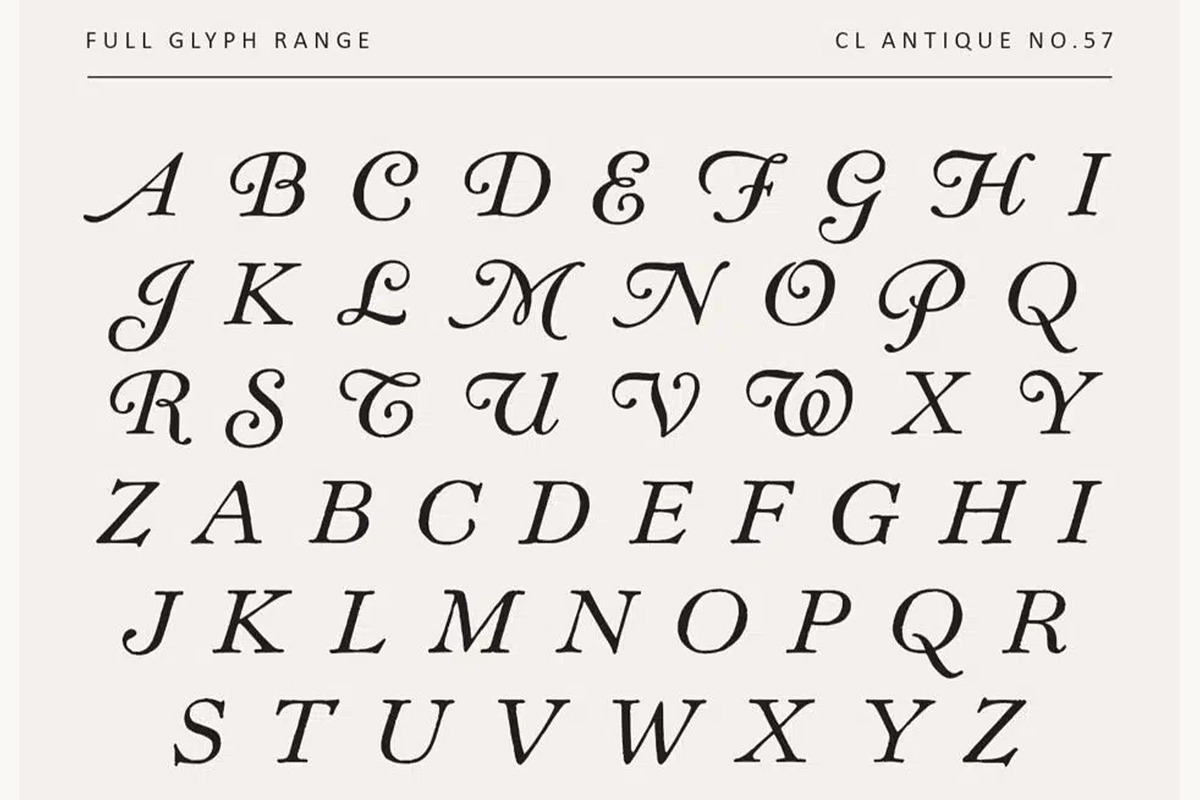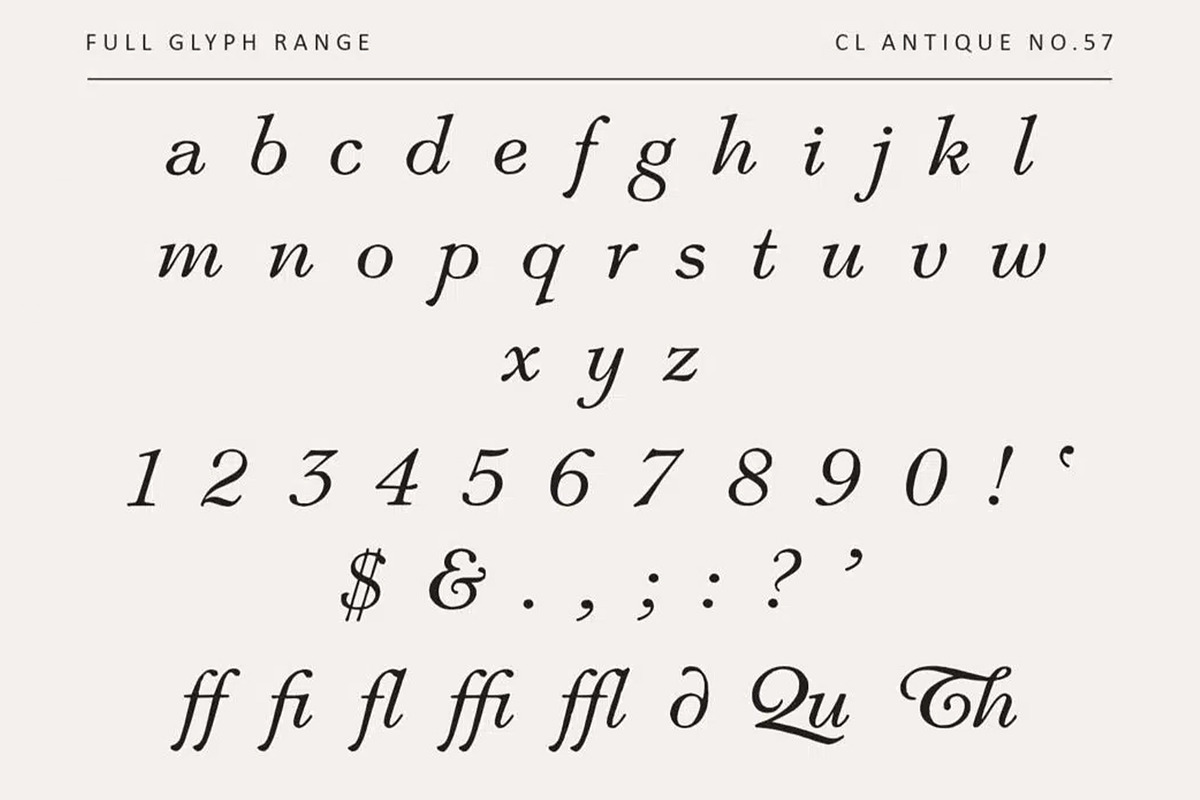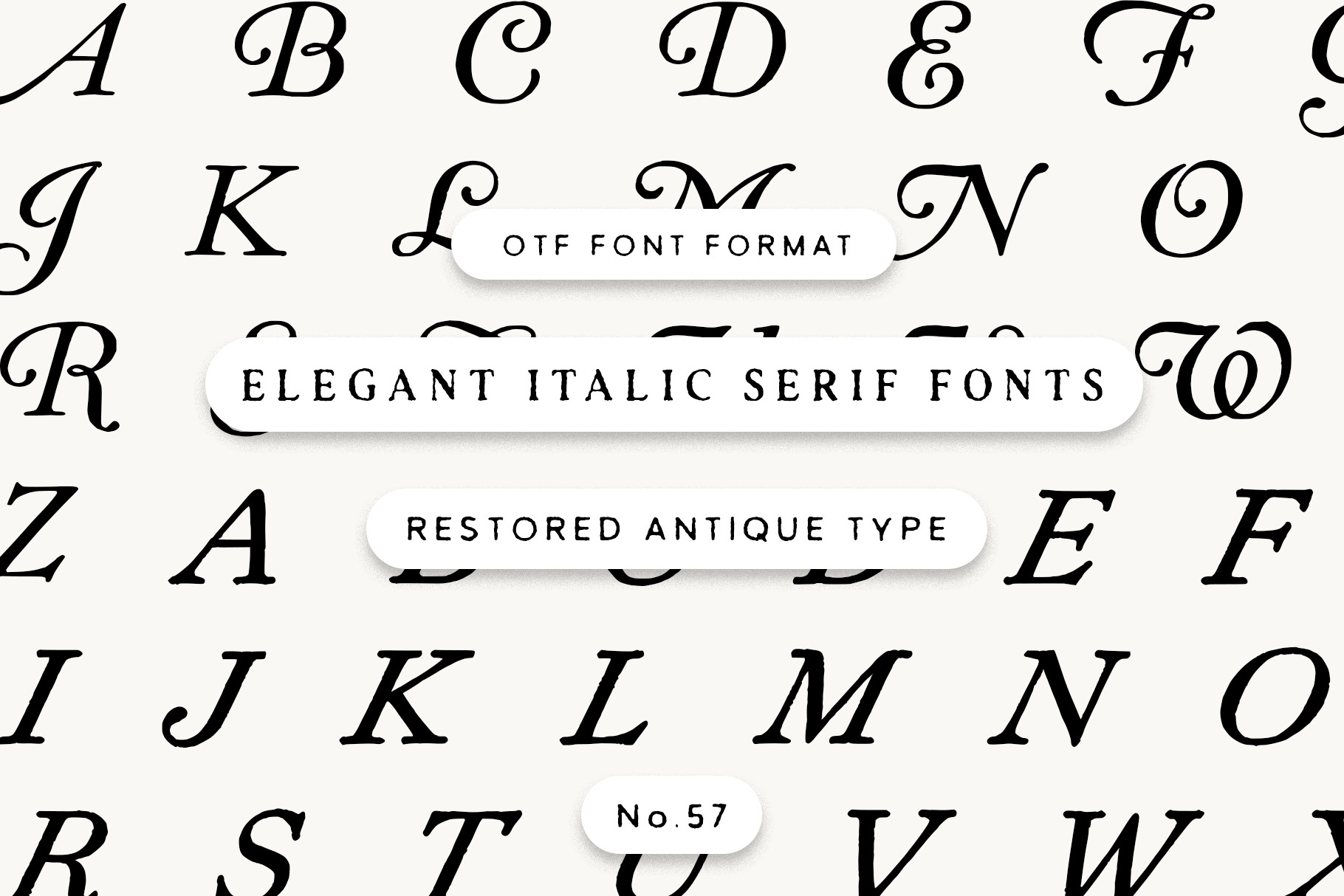
Vintage Italic Serif Font
Introducing CL Antique No.57: A refined italic serif typeface from the early 1900s featuring full uppercase and lowercase sets, numerals, punctuation, and classic f-ligatures with a few swash forms. The slanted, calligraphic strokes suggest an oldstyle feel suited to editorial headings or formal text
Perfect for wedding invitations, branding, packaging, editorial design, and any project that needs a genuine touch of old-world elegance.